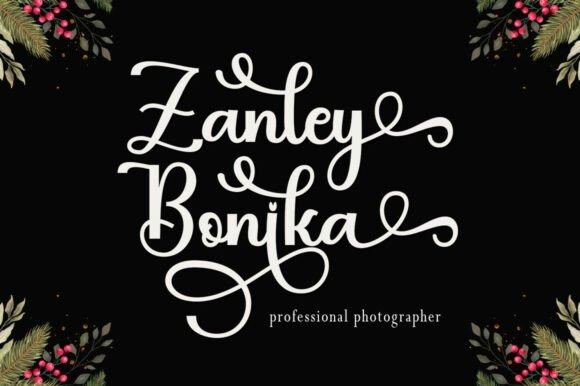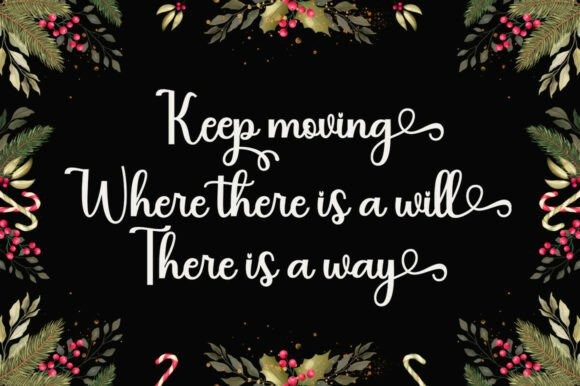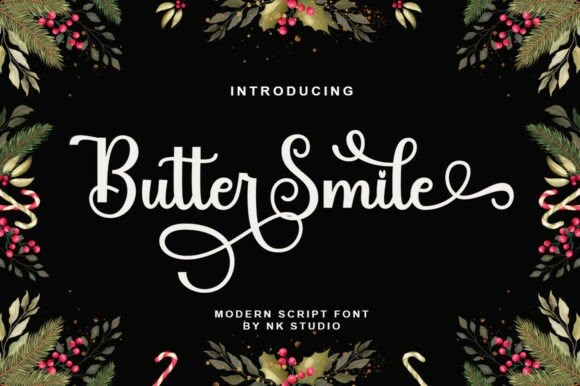
Butter Smile Font
Butter Smile Font is an exquisitely designed script font that weaves copper calligraphy and hand-lettering style into an elegant symphony of typography. Timeless and versatile, its character effortlessly extends across both the spheres of subtlety and drama. Its understated charm and feminine allure make it a captivating choice for those looking to add a dash of glamour and elegance with simplicity.
Not just easy on the eyes, Butter Smile is also incredibly readable, rendering it perfect for varied formal applications – from creating impactful invitations, labels, menus, and logos to setting the tone right for fashion and makeup brands. Whether it’s about writing a letter or designing romantic novels, magazines, books, greeting/wedding cards, packaging, and labels, Butter Smile fits right in, adding its distinctive flair and style.